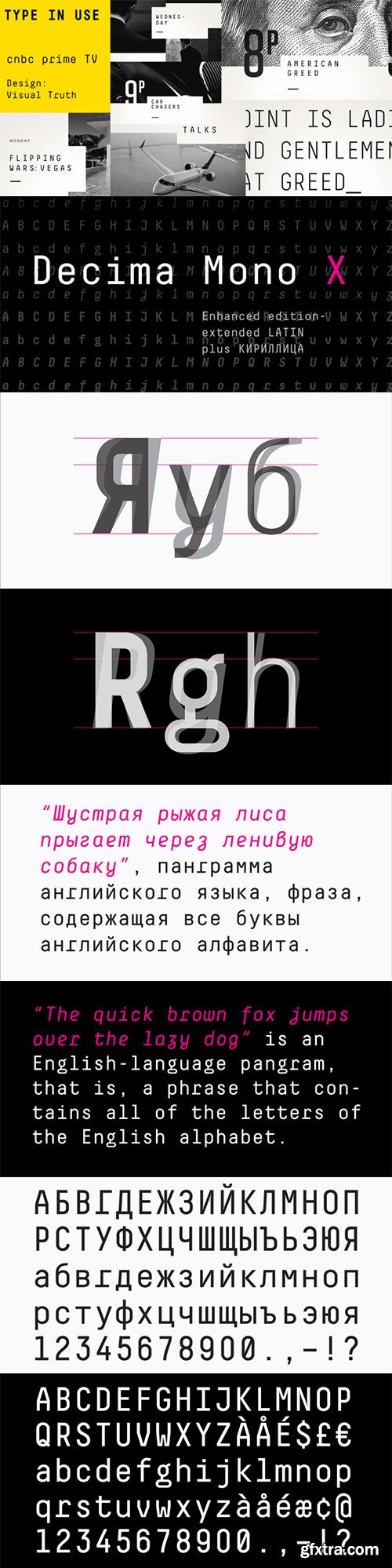
- Decima Mono X is the upgraded edition of Decima Mono fonts (released in 2009). This version consists of the same (six) styles updated with larger character sets by extending number of Latin languages and by adding Cyrillics. The typeface is intended for use in display sizes, but is also quite legible in text and is well suited for editorial and brand design.